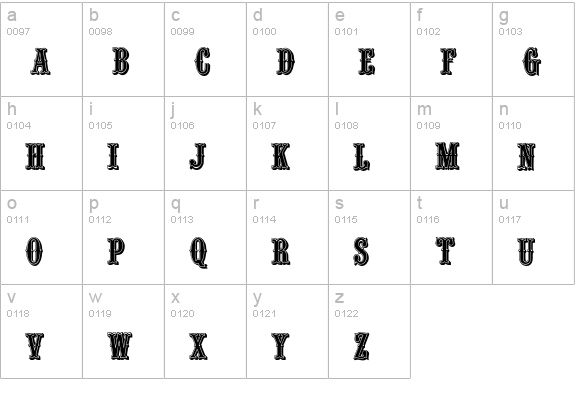
QuentinEF Font Details
QuentinEF font is a stunning typeface that exudes elegance and sophistication. With its stylish and intricate letterforms, this font is perfect for adding a touch of class to any design project. Whether you're creating a logo, designing a website, or crafting a beautiful invitation, QuentinEF font will elevate your work to new heights. What makes QuentinEF font even more appealing is that it is freely available to download at FontsMarket.com. This means that you can easily access this incredible font without any cost, making it an excellent choice for both personal and commercial projects. The versatility of QuentinEF font is truly remarkable. Its delicate curves and sharp serifs create a harmonious balance, making it suitable for various design styles, from modern to vintage. The attention to detail in each character is evident, giving your text a polished and refined appearance. Whether you're looking to convey a sense of sophistication, elegance, or timelessness, QuentinEF font is the perfect choice. Its timeless appeal and graceful aesthetic will captivate your audience and leave a lasting impression. Download QuentinEF font for free at FontsMarket.com and experience the beauty and versatility of this incredible typeface. Enhance your designs with its refined elegance and make a statement with every letter. QuentinEF font is a true gem in the world of typography, and now, it's yours to explore and create with.